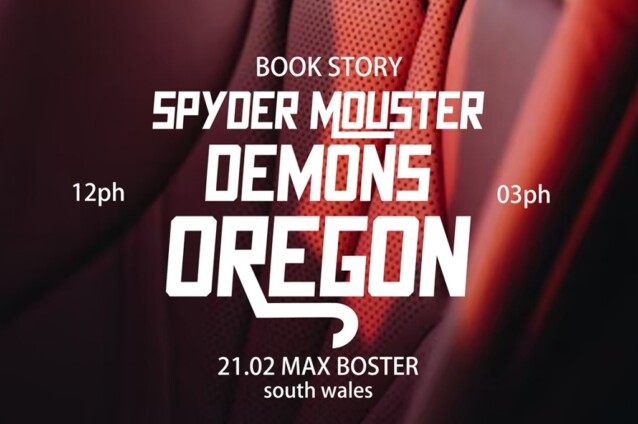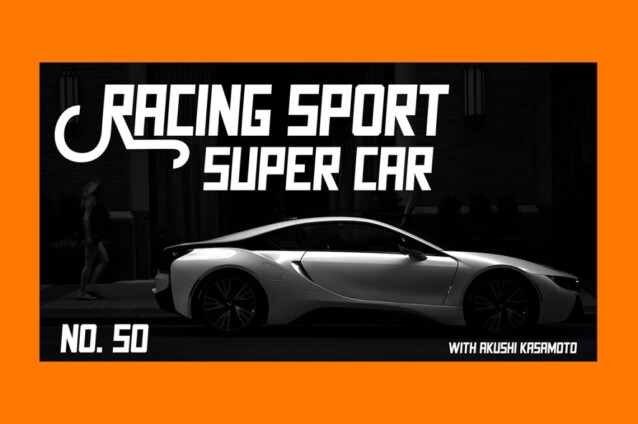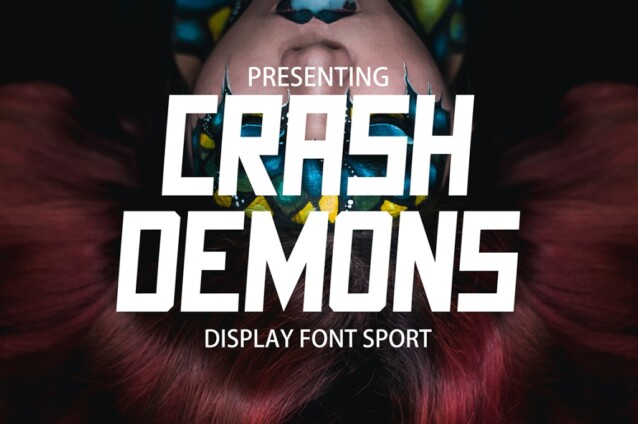
Crash Demons Font
Crash Demons Font is a geometric bold display font crafted & designed by Gian Studio. It’s basically Sans with a touch of serif to each letter. A Simplicity yet very legible with various widths and weights that you can explore, combine, create and help you design things.